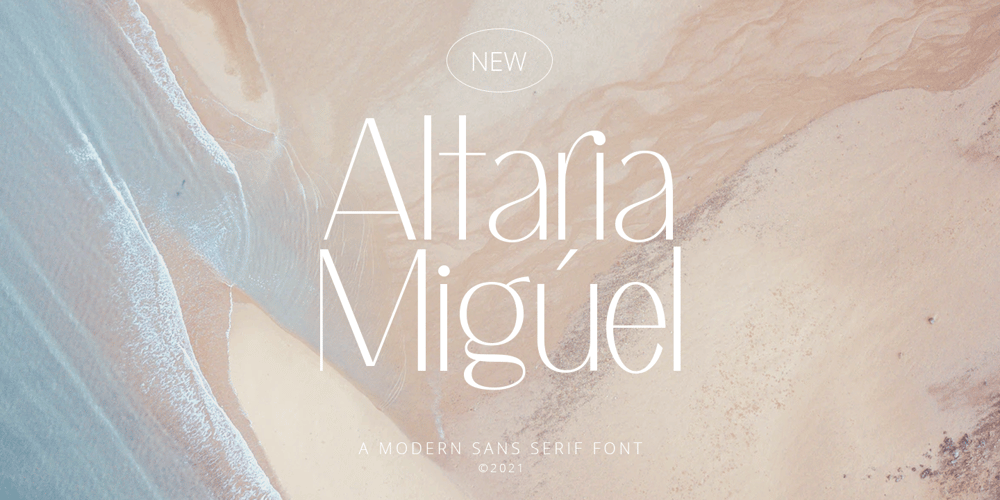
Altaria Miguel Font Family was designed by Gustian Agung Asprilla and published by Rillatype. Altaria Miguel contains 2 styles and family package options. Introducing, my latest font. Altaria Miguel! Altaria Miguel is an elegant and modern sans serif font. altaria miguel can offer a thin font with a modern look that’s perfect for your various design needs from headline, branding, logo, advertisement, product design, etc.Altaria Miguel was created with great care and precision with the aim of none other than to make this font perfect as a font that can be used in a variety of needs. The kerning in this font is also done with great care to maintain the perfection of this font. In addition, Altaria Miguel also provides a slanted version which is also re-kerned separately to get maximum kerning results.There it is. We really hope that you enjoy this font, and please feel free to reach me if you have any question.Thank You!